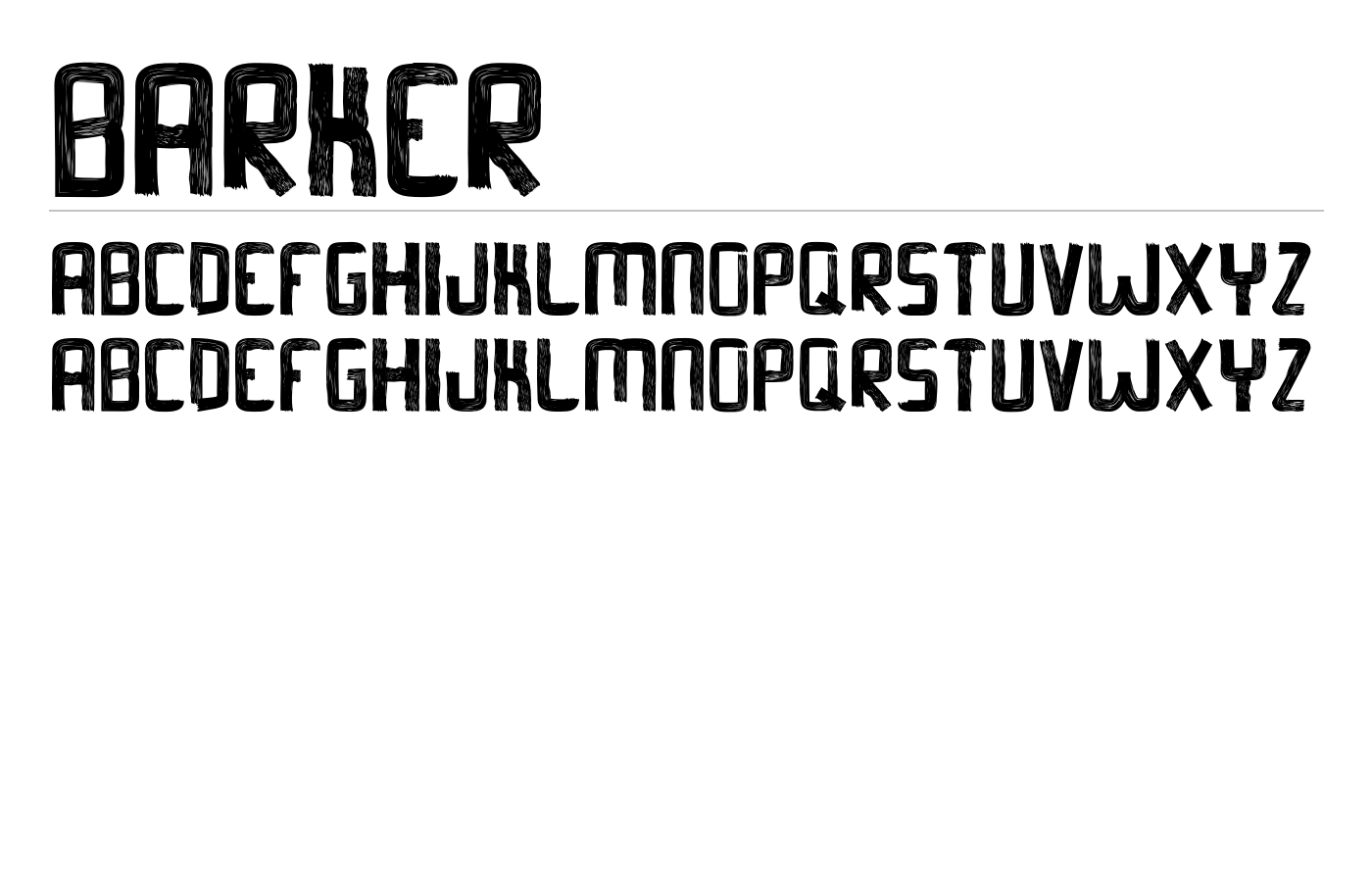
Barker is a bold, condensed sans serif font with a textured, hand-drawn appearance that gives it a rugged and playful personality. Its tall, narrow letterforms with uneven stroke patterns create a distinctive, artistic feel that works best for attention-grabbing headlines, posters, and creative branding where a unique, informal vibe is desired. This font brings an energetic, handcrafted style that suits projects aiming for a bold yet approachable look.
Barker Font
About Barker Font